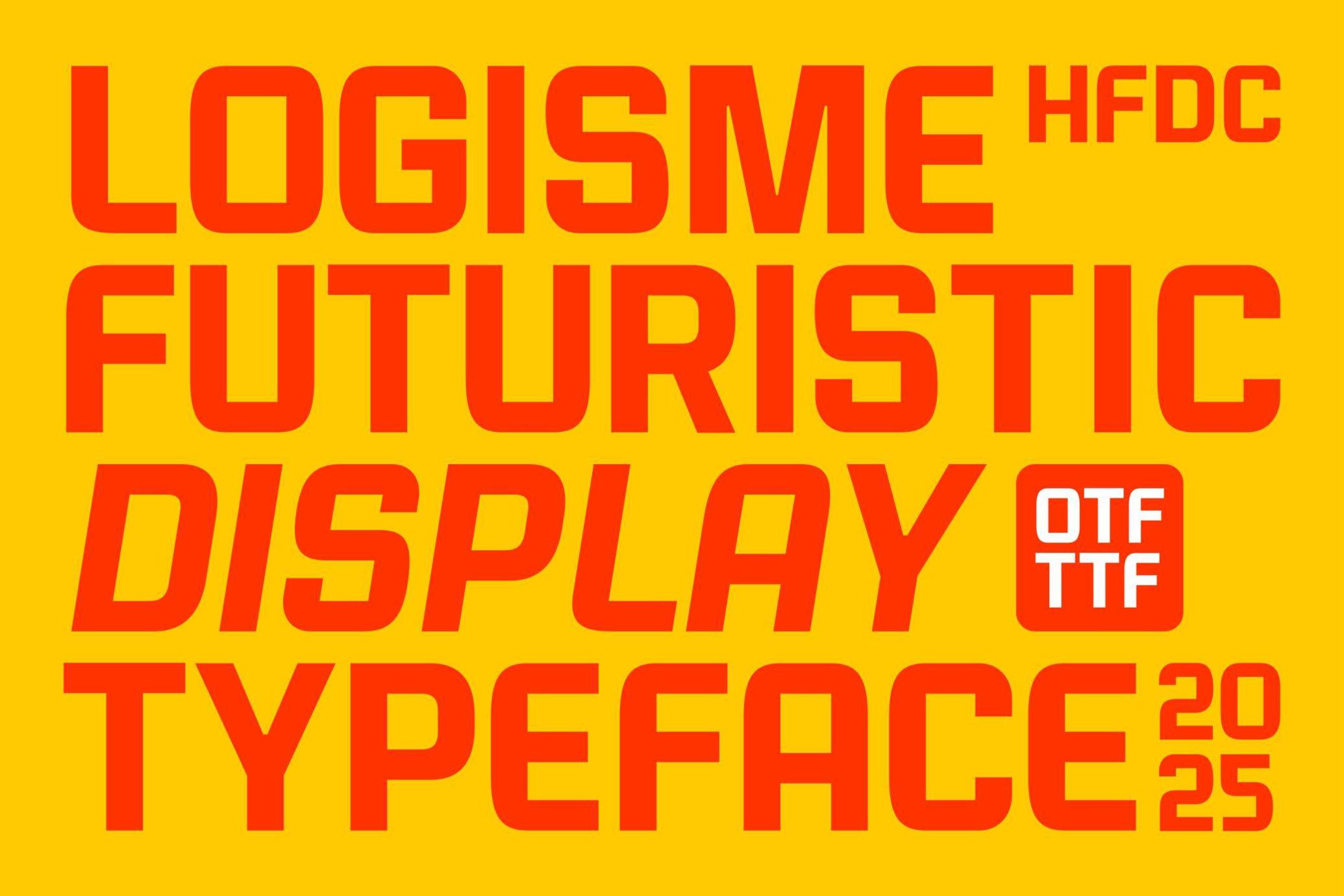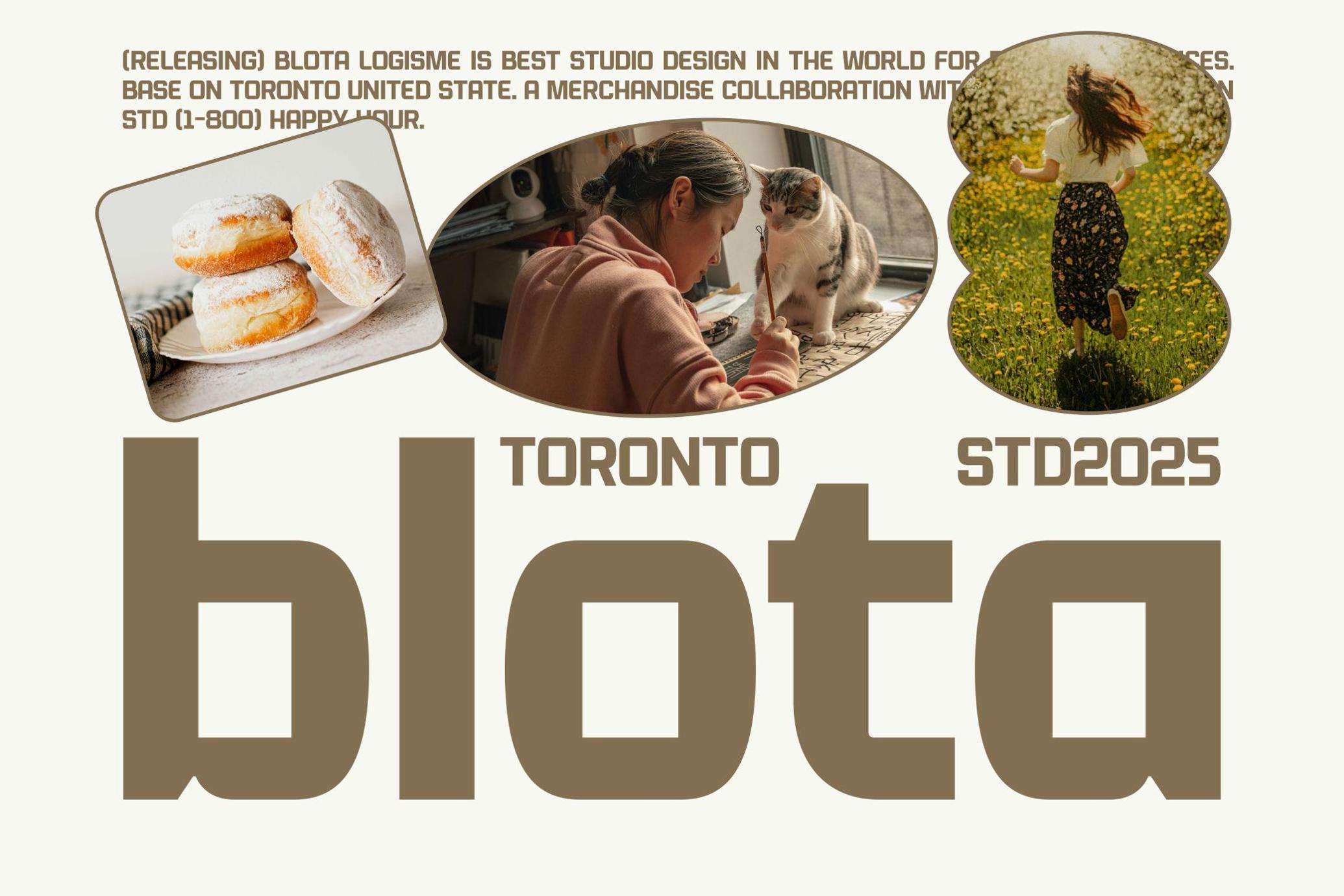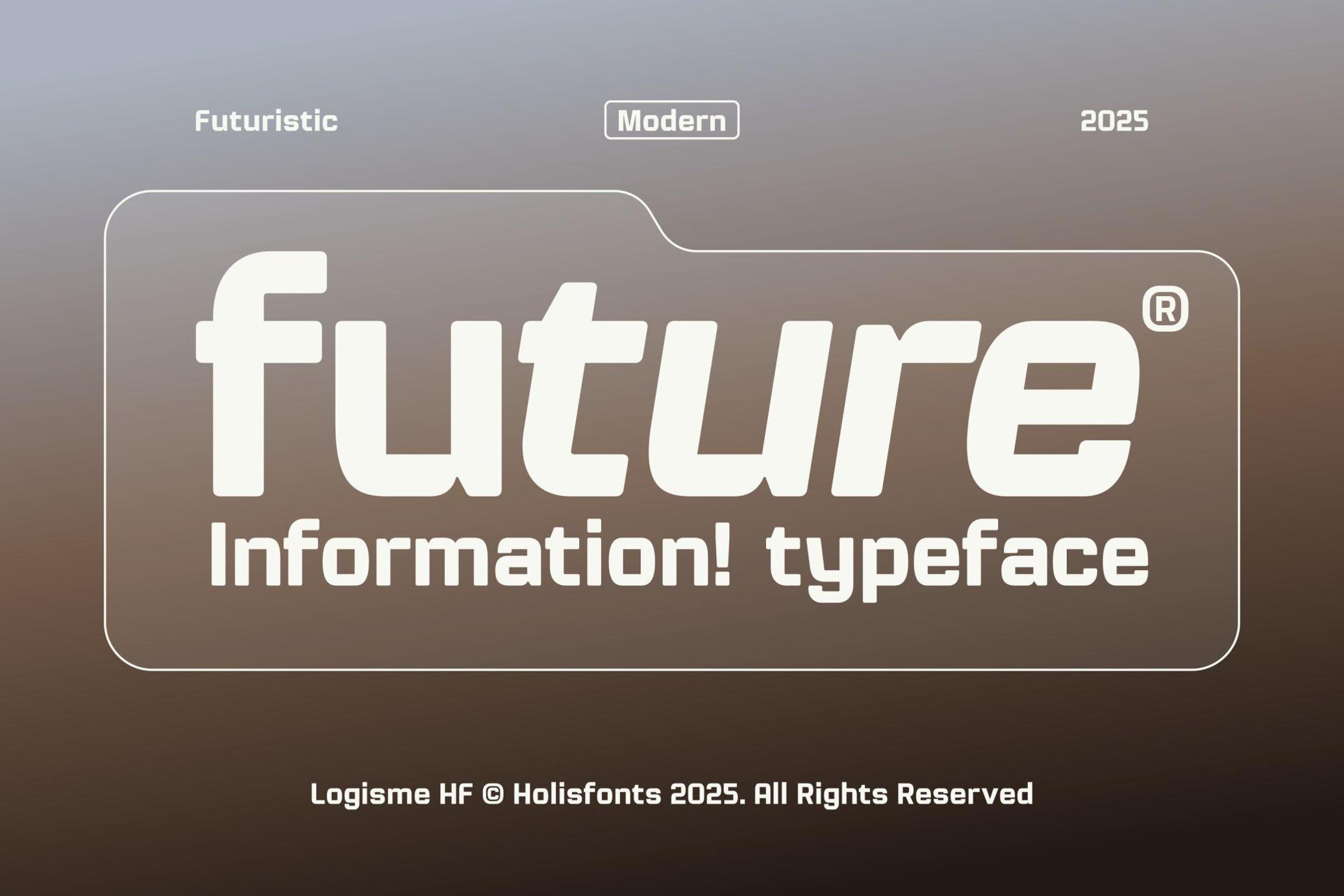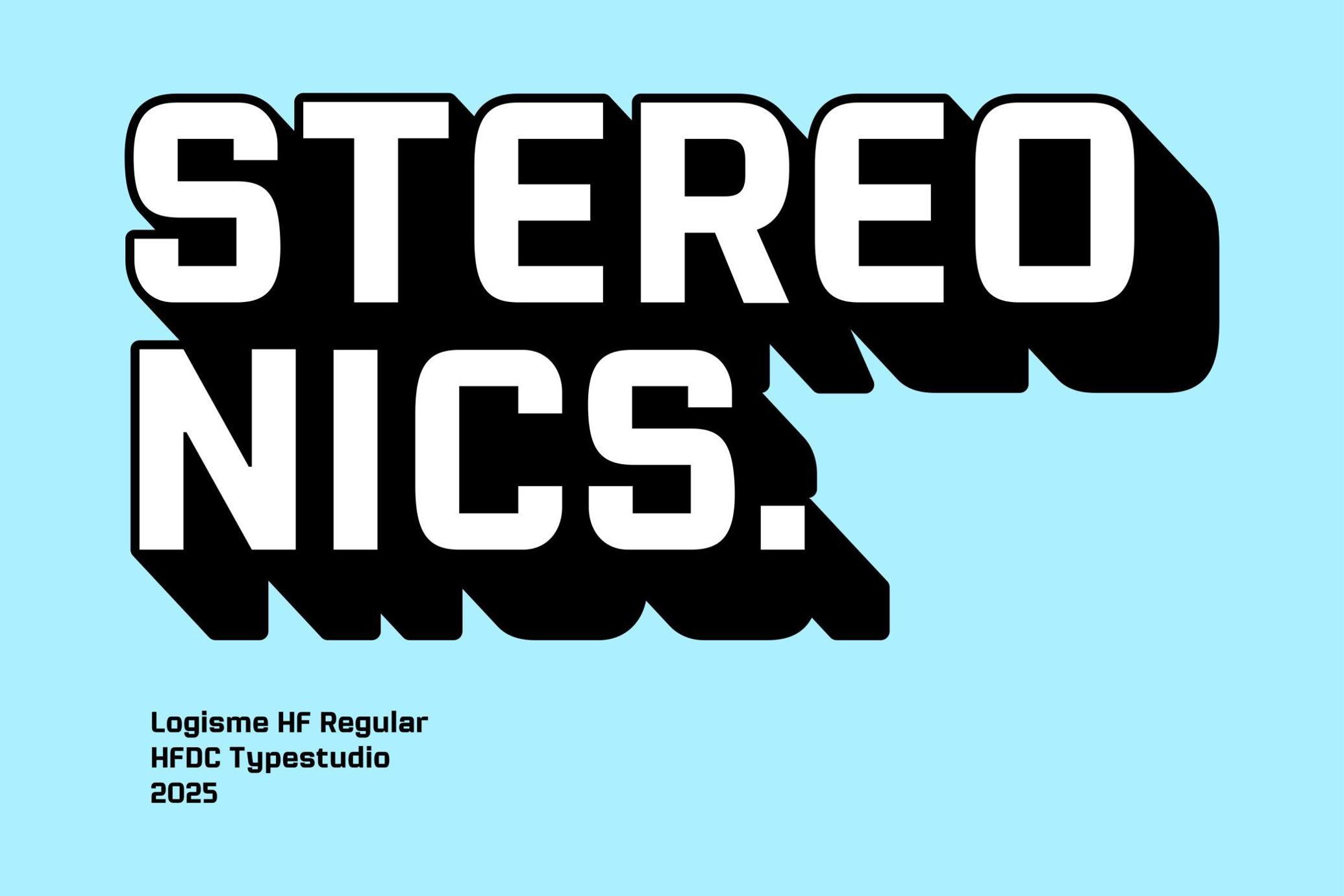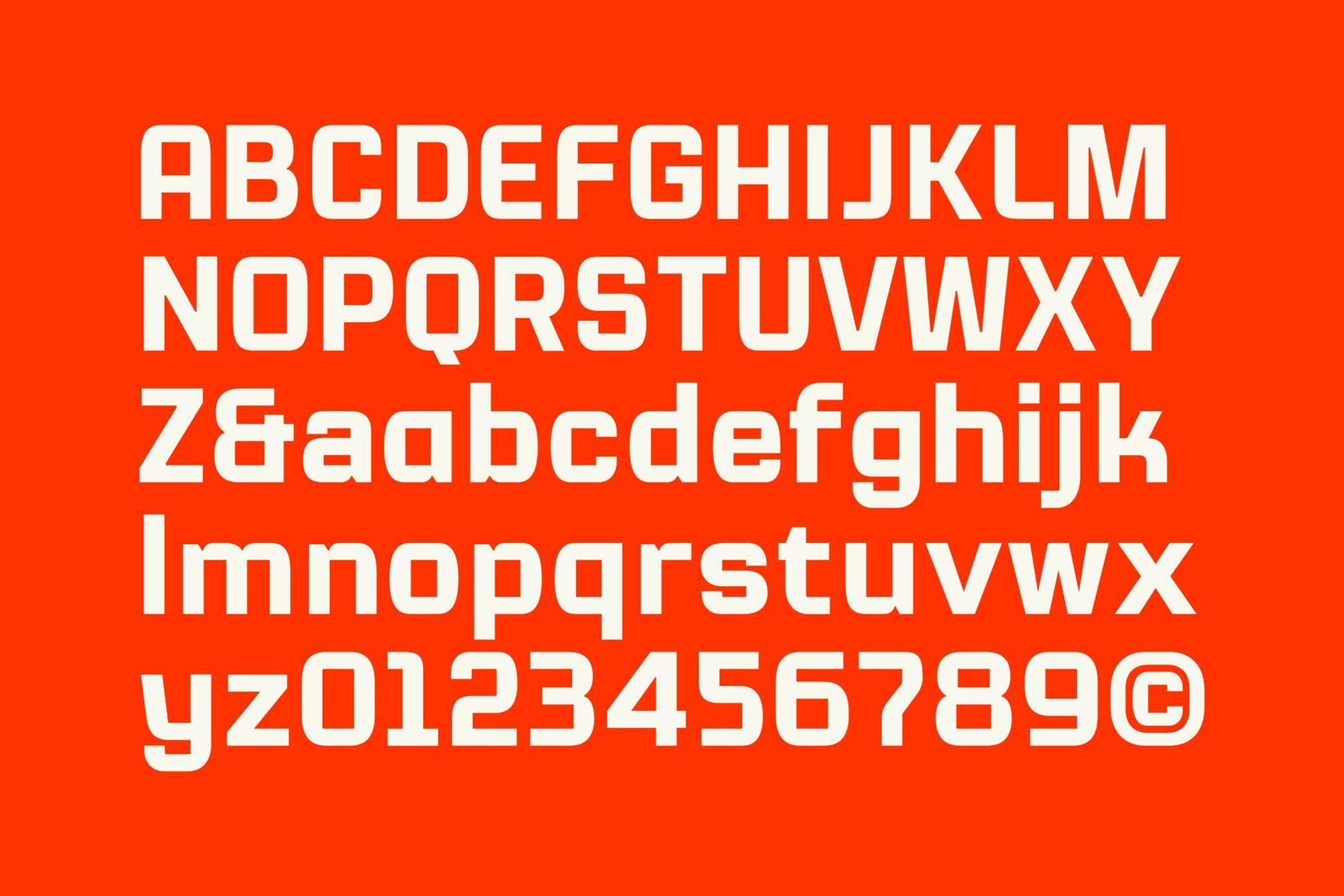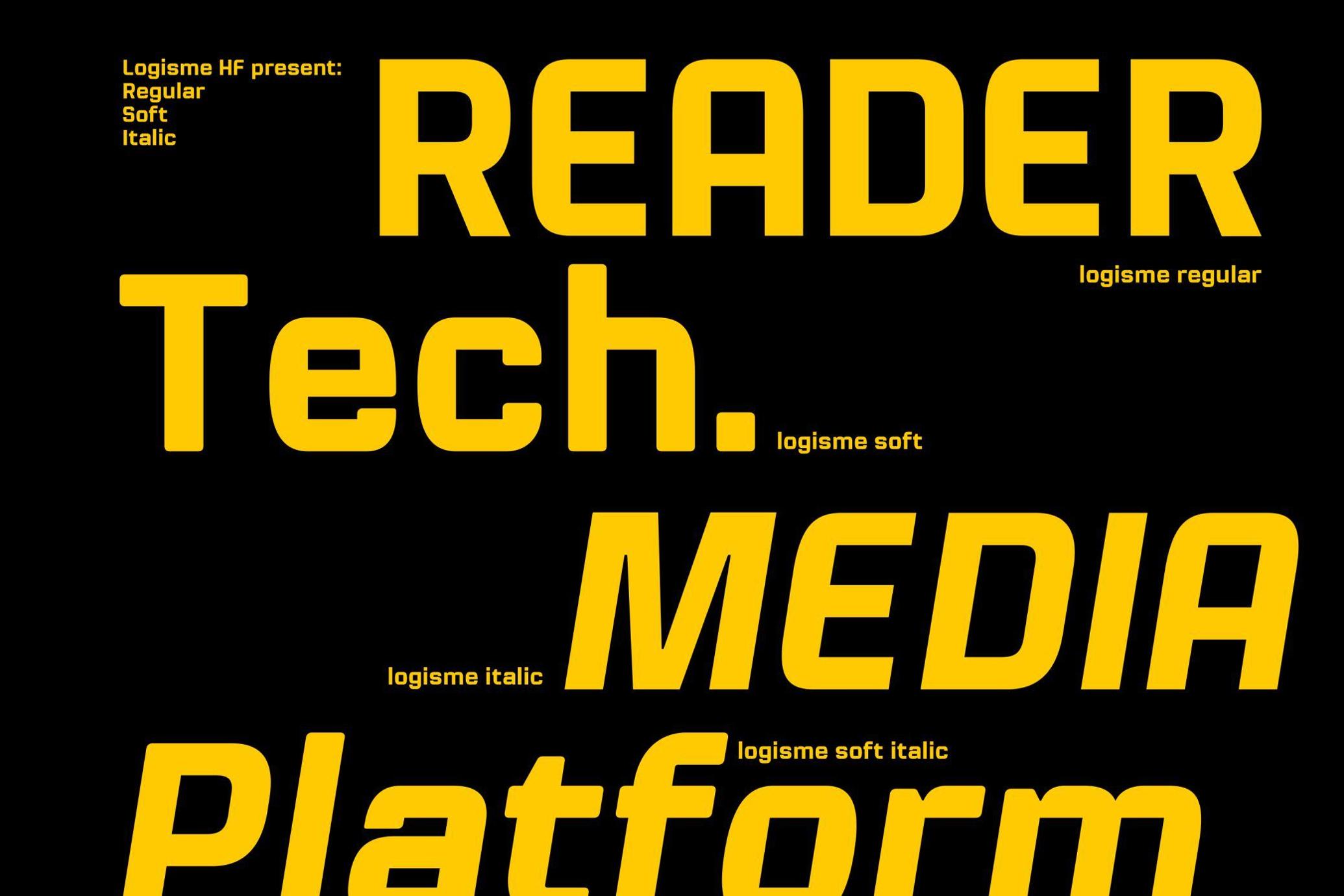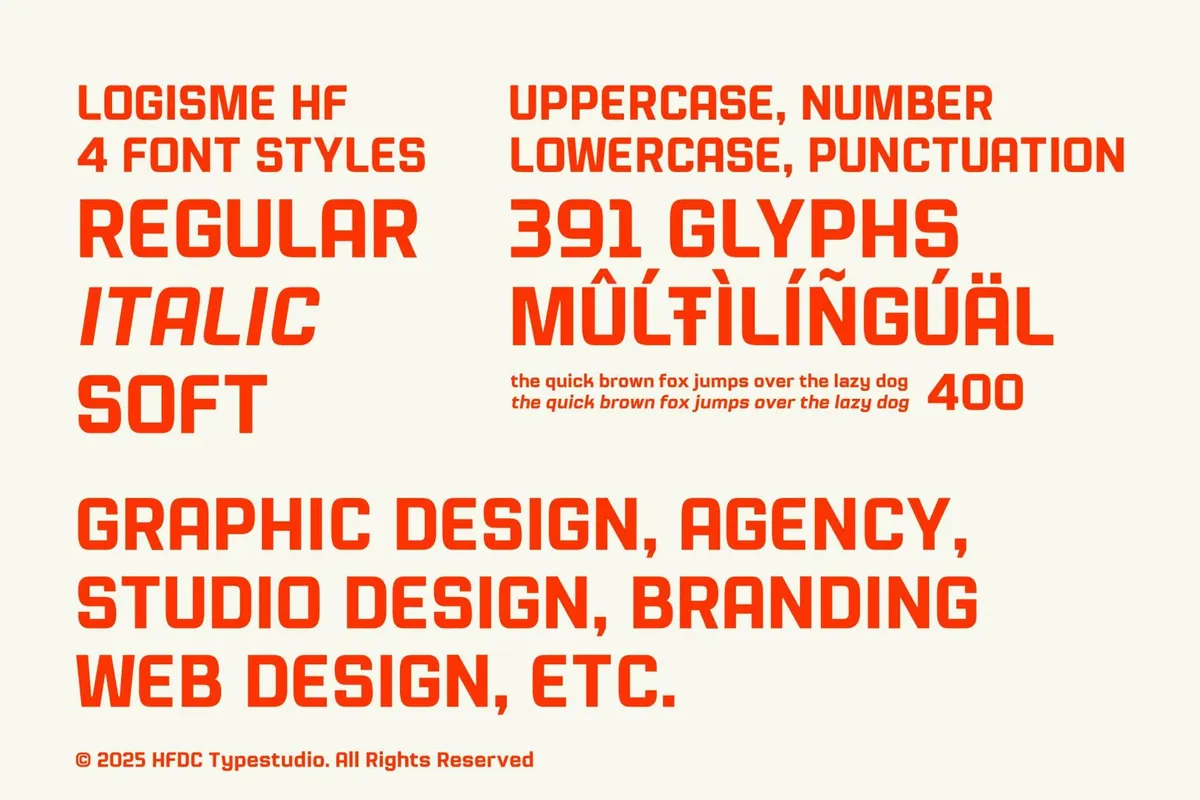
Logisme Futuristic Typeface
Soft
Italic Soft
Introducing Logisme, a sleek and futuristic display font that combines sharp geometry with dynamic flair. Designed to make a bold statement, Logisme is perfect for headlines, posters, branding, and any project that demands a cutting-edge aesthetic.
Elevate your design with Logisme — where the future of typography begins.
- 4 Styles: Regular, Soft, Italic, Italic Soft
- Punctuation
- Number